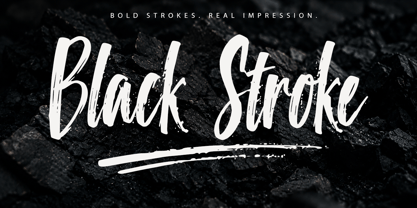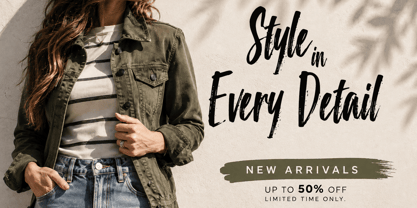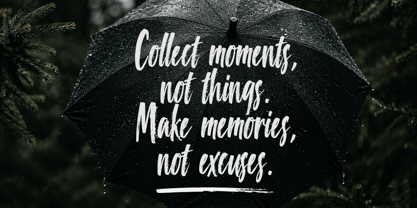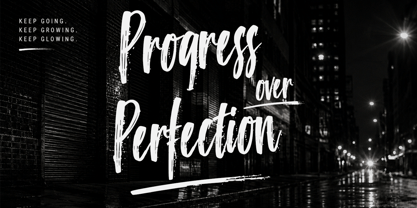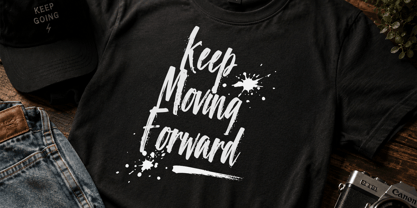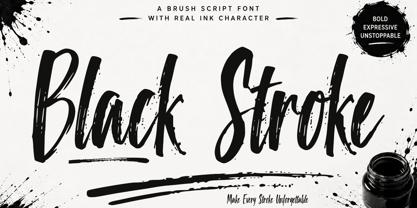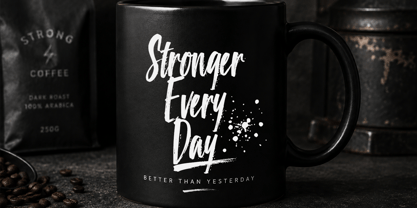
Black Stroke
La familia tipográfica Black Stroke fue diseñada por Muhammad Zaini y publicada por Cocodesign. Black Stroke contiene 2 estilos y opciones de paquete familiar. Más información sobre esta familia
Black Stroke – Bold Brush Script Font
Black Stroke is a bold and expressive brush script font inspired by the raw character of real ink and hand-painted lettering. Strong brush strokes, rough edges, natural ink textures, and dynamic details create an authentic handcrafted appearance.
The font comes with extra swash underline elements and ink splatter accents, adding more movement, energy, and artistic character to lettering compositions.